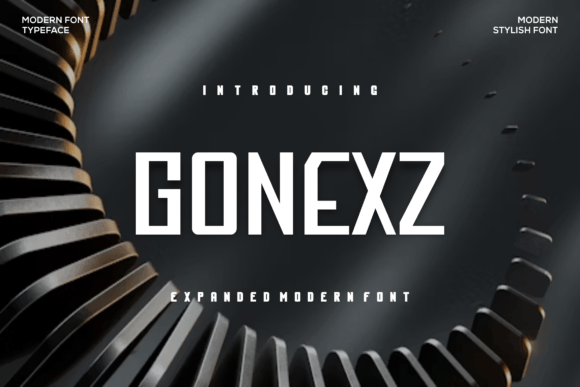
The Perfect Font for Your Creative Vision
Have you ever stared at a blank canvas, waiting for the perfect font to bring your design to life? You know, that moment when the words just flow, and the entire concept comes together in a flash of inspiration? It’s a feeling every designer knows well, and it’s exactly what makes the right font so crucial to the creative process.
Enter the Gonexz Font, a modern and stylish typeface designed to elevate your headlines and creative designs. With its clean, wide letters, it’s easy on the eyes and adds a touch of sophistication to any project. Whether you’re working on a branding campaign, a marketing brochure, or a social media post, the Gonexz Font is the perfect choice to make your message stand out.
For designers, the value of the Gonexz Font lies in its versatility and impact. It’s a game-changer for anyone looking to create visually appealing content that grabs attention and leaves a lasting impression.
Gonexz Font Key Features
- Unique Characteristics: The font features a unique blend of modern and vintage elements, making it ideal for designs that require a touch of sophistication and elegance.
- Font Style: The font comes in both regular and bold styles, allowing designers to create contrasting text effects and add emphasis to their designs.
Gonexz Font Review
As a designer, I was excited to try out the Gonexz Font, but I have to say that my experience was a mixed bag.
- Unique Style: The Gonexz Font has a distinct and quirky style that’s perfect for making a statement.
- Wide Language Support: It has excellent support for a wide range of languages, making it a great option for multilingual projects.
- High-Quality Vectors: The font’s vectors are of high quality, making it perfect for printing and scaling.
- Limited Readability: While the font is visually striking, it can be difficult to read at smaller font sizes.
- Lack of Expressiveness: The font’s unique style can sometimes make it difficult to convey nuanced emotions and ideas.
- Not Suitable for Body Text: Due to its limited readability and expressiveness, I wouldn’t recommend using the Gonexz Font for body text.
The Gonexz Font is a great option for designers who want to add a touch of uniqueness to their projects. However, it’s not suitable for every project, and its limitations should be carefully considered before use.
Getting the Most Out of Gonexz Font
Here are some tips for getting the most out of Gonexz Font:
- Experiment with different font sizes and styles to achieve the desired effect.
- Combine Gonexz Font with other fonts to create a unique and visually appealing design.
- Use Gonexz Font in creative and unexpected ways, such as in headings or as a title font.
Gonexz Font is ideal for:
- Headings and titles in creative designs.
- Branding
Alternatives to Gonexz Font for Designers
Montserrat is a sans-serif font designed for urban environments. It is highly legible and versatile, making it suitable for a wide range of designs, from digital interfaces to print materials. Montserrat is more geometric and modern than Gonexz Font, which makes it a better choice for modern and minimalist designs.
Open Sans is a clean and modern sans-serif font that is highly legible and versatile. It is suitable for digital interfaces, print materials, and even signage. Open Sans is more rounded and friendly than Gonexz Font, making it a better choice for designs that require a more approachable tone.